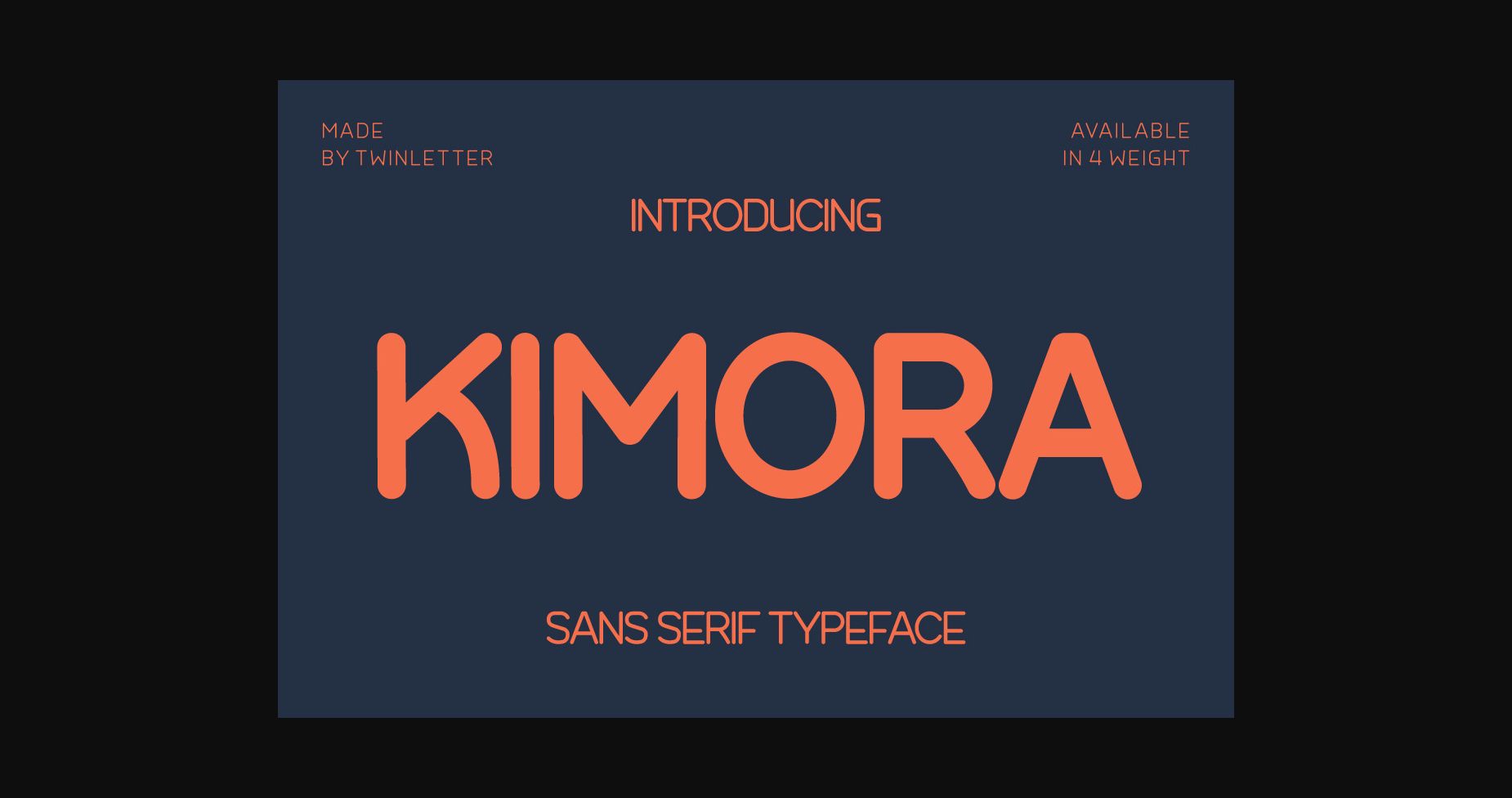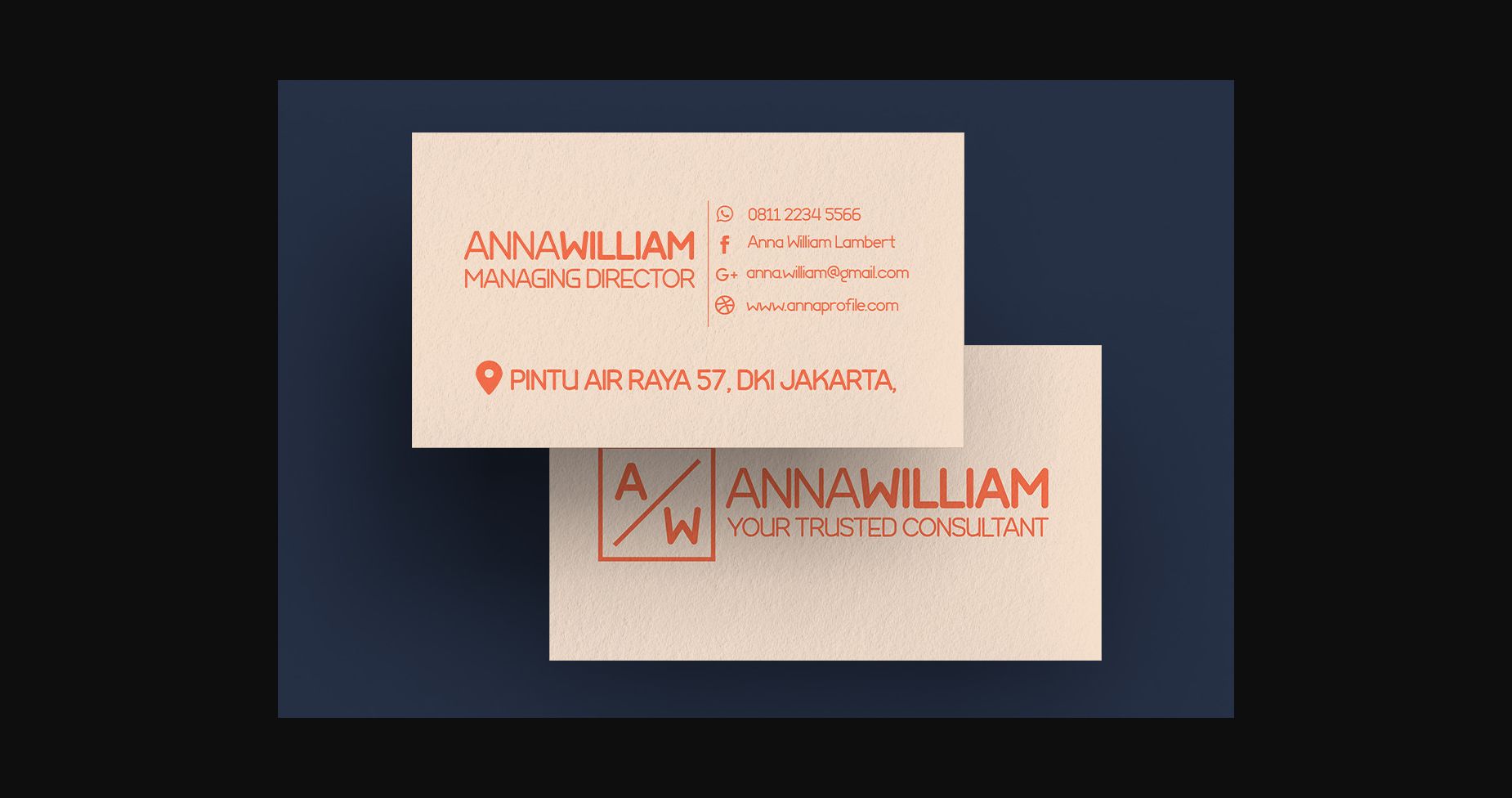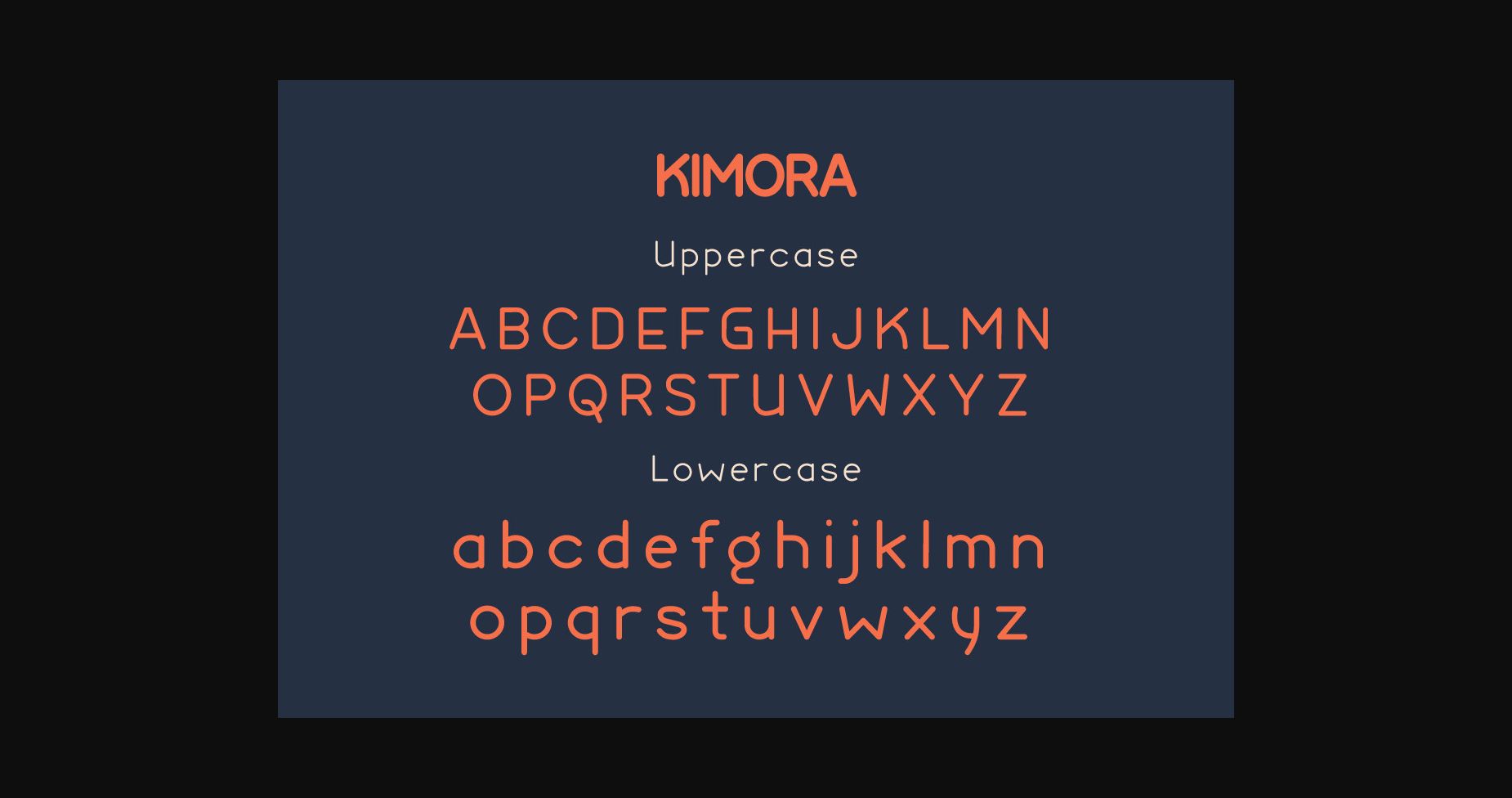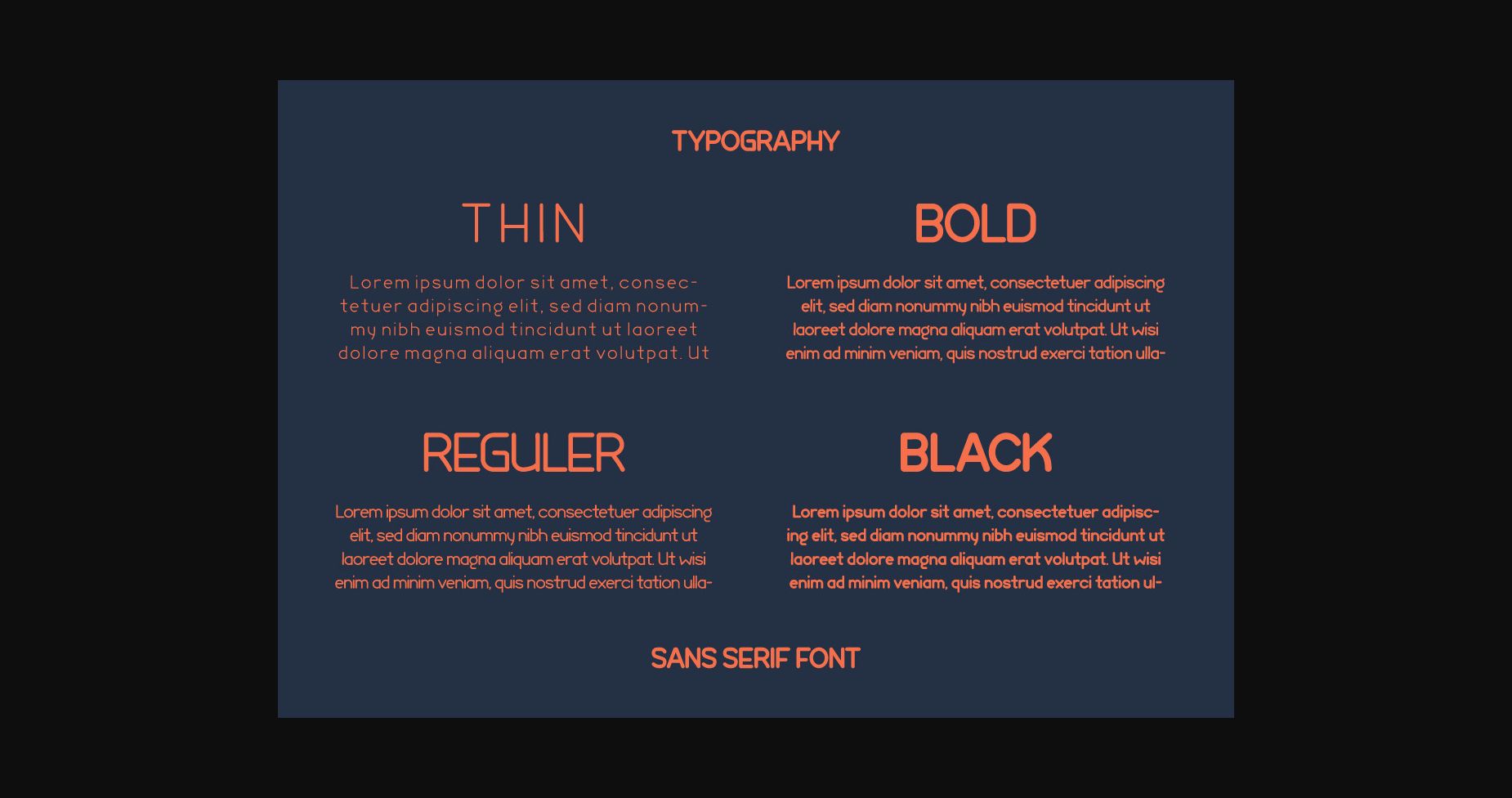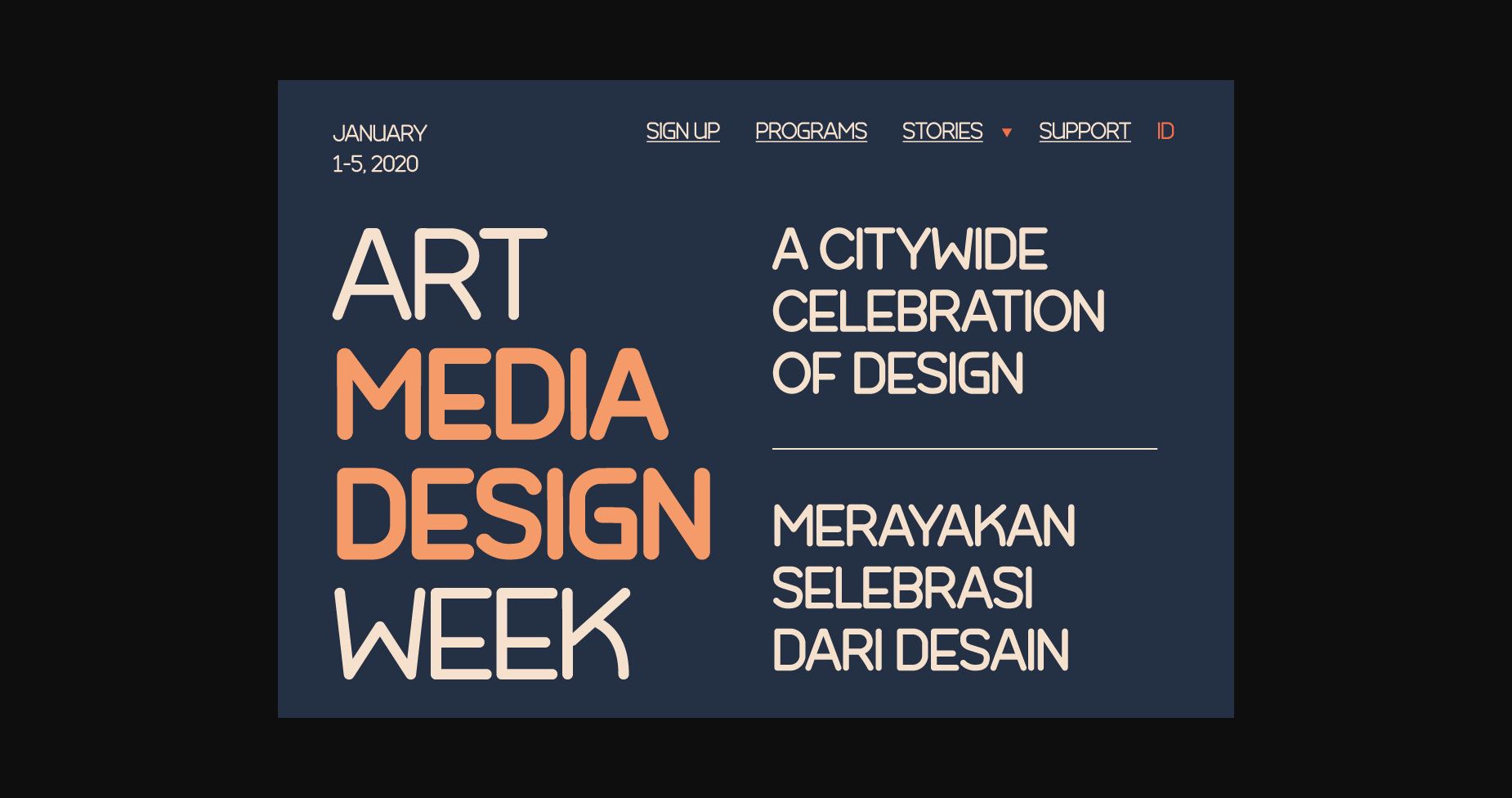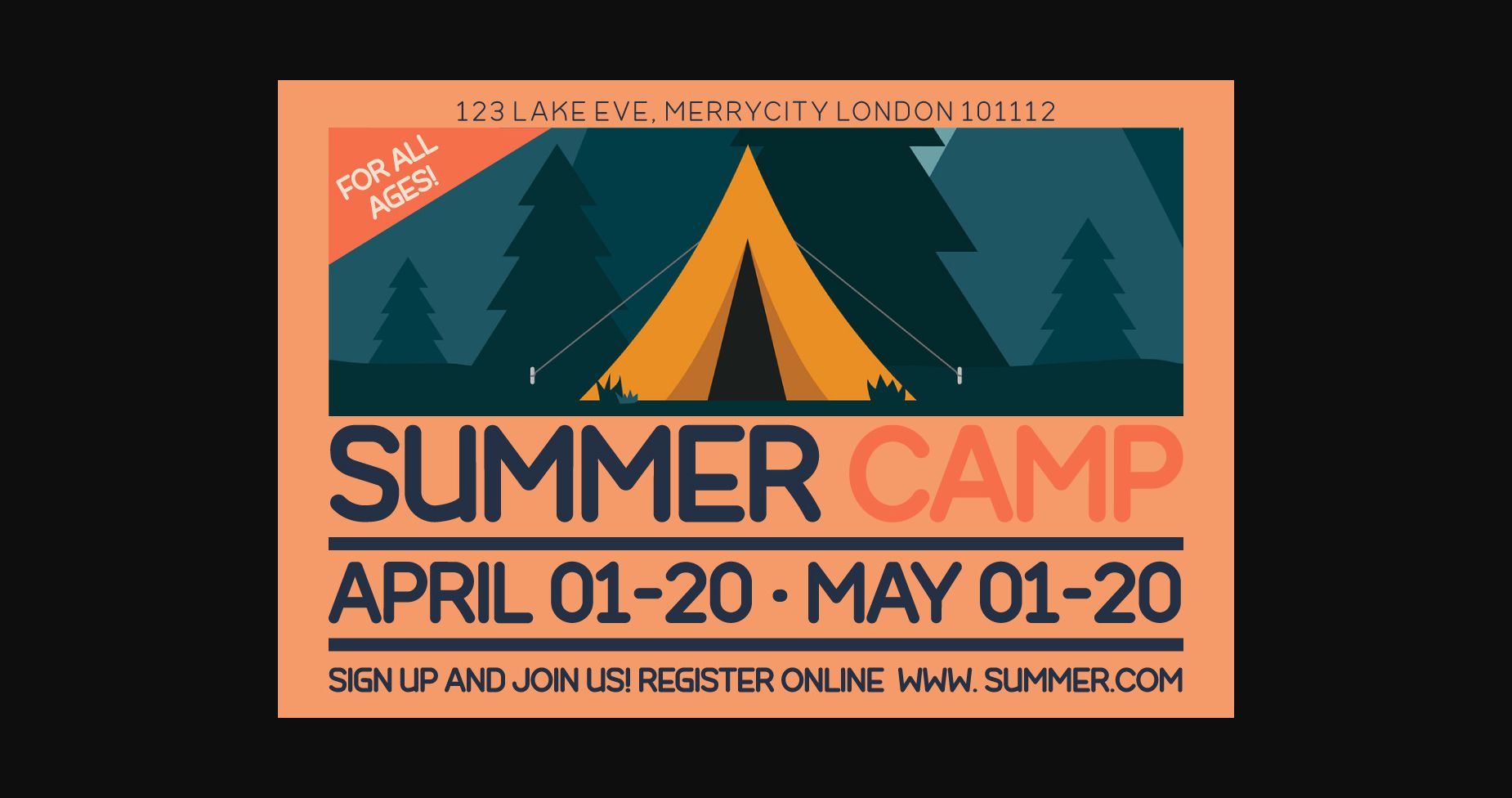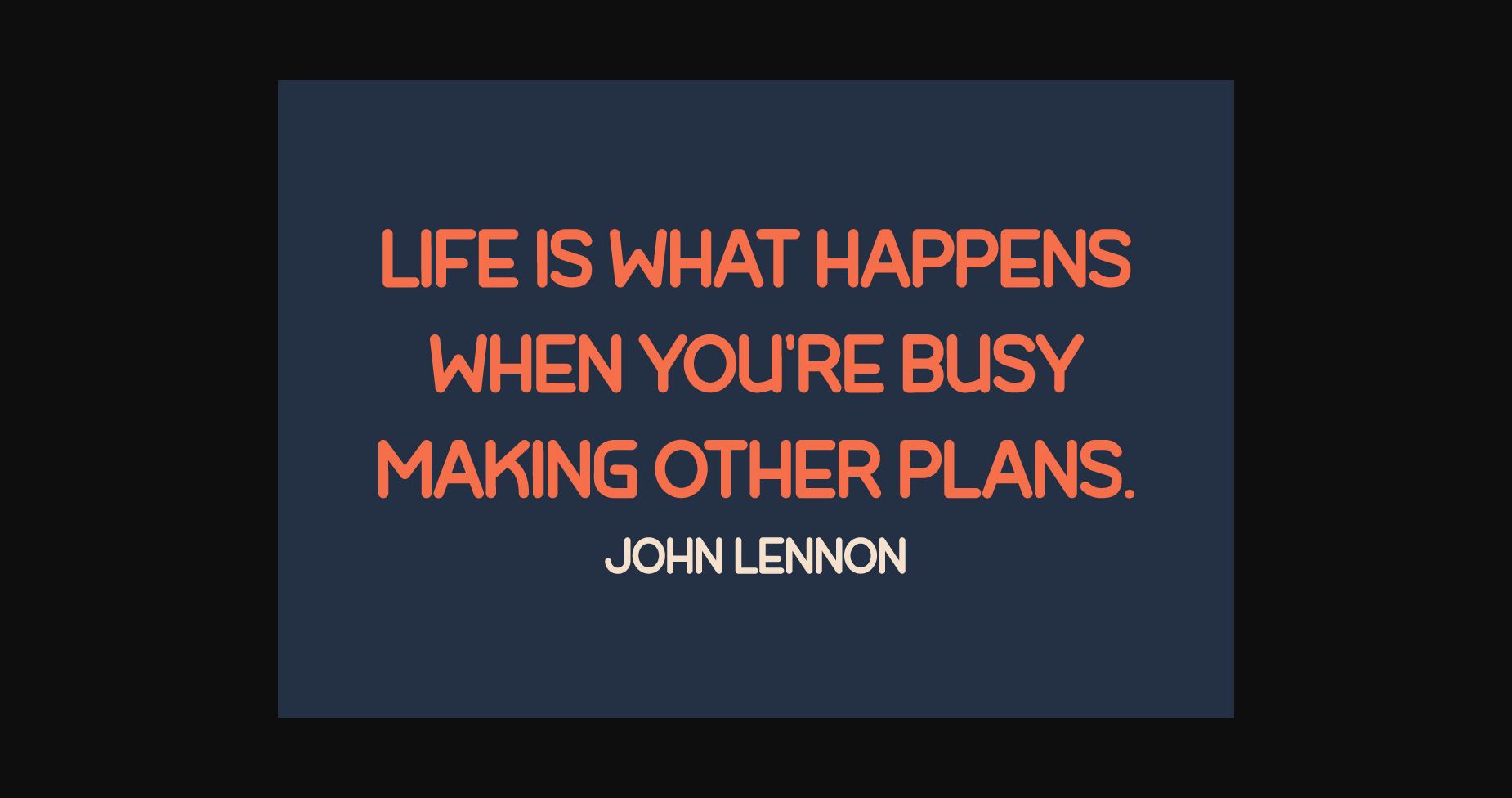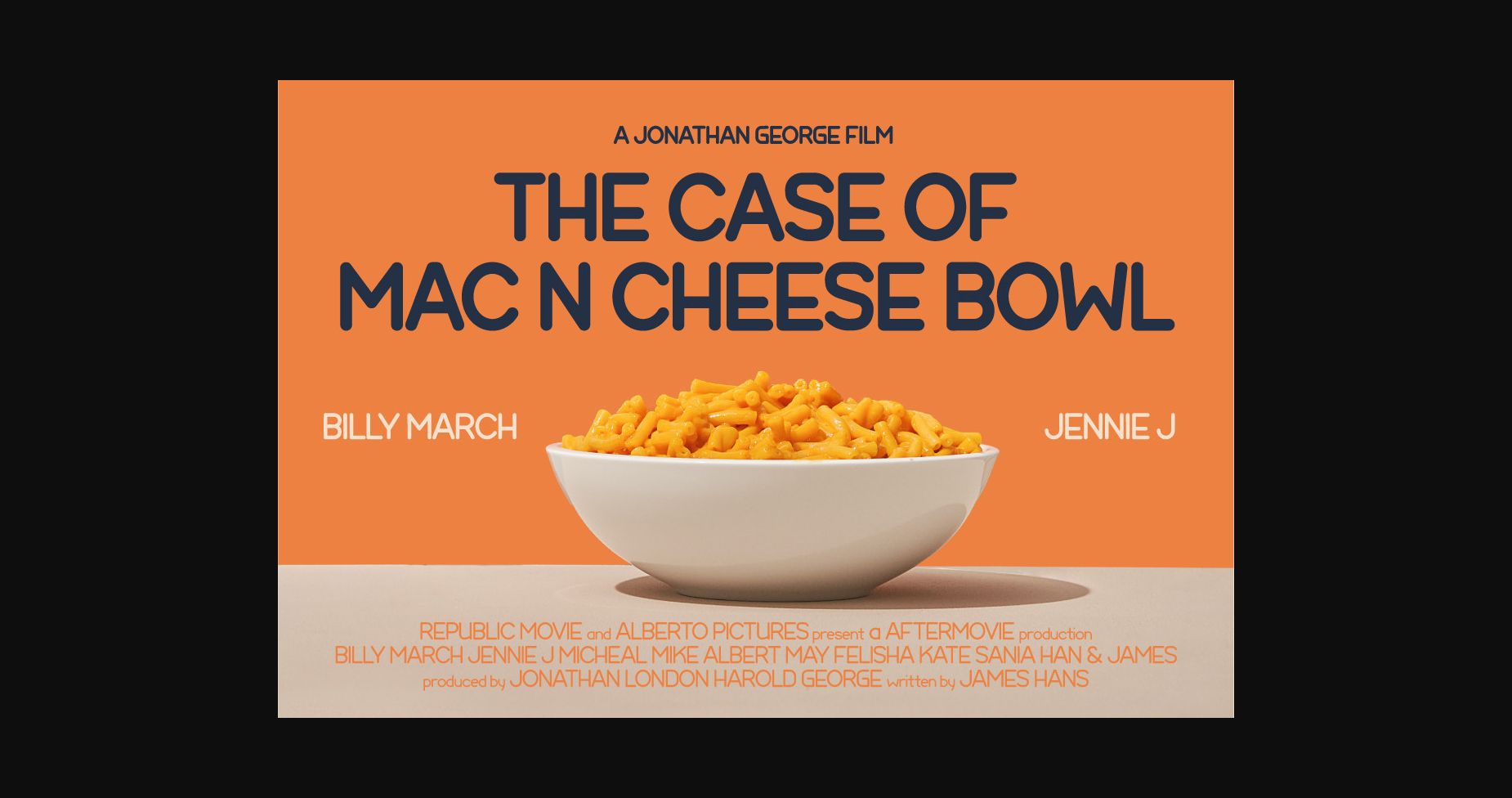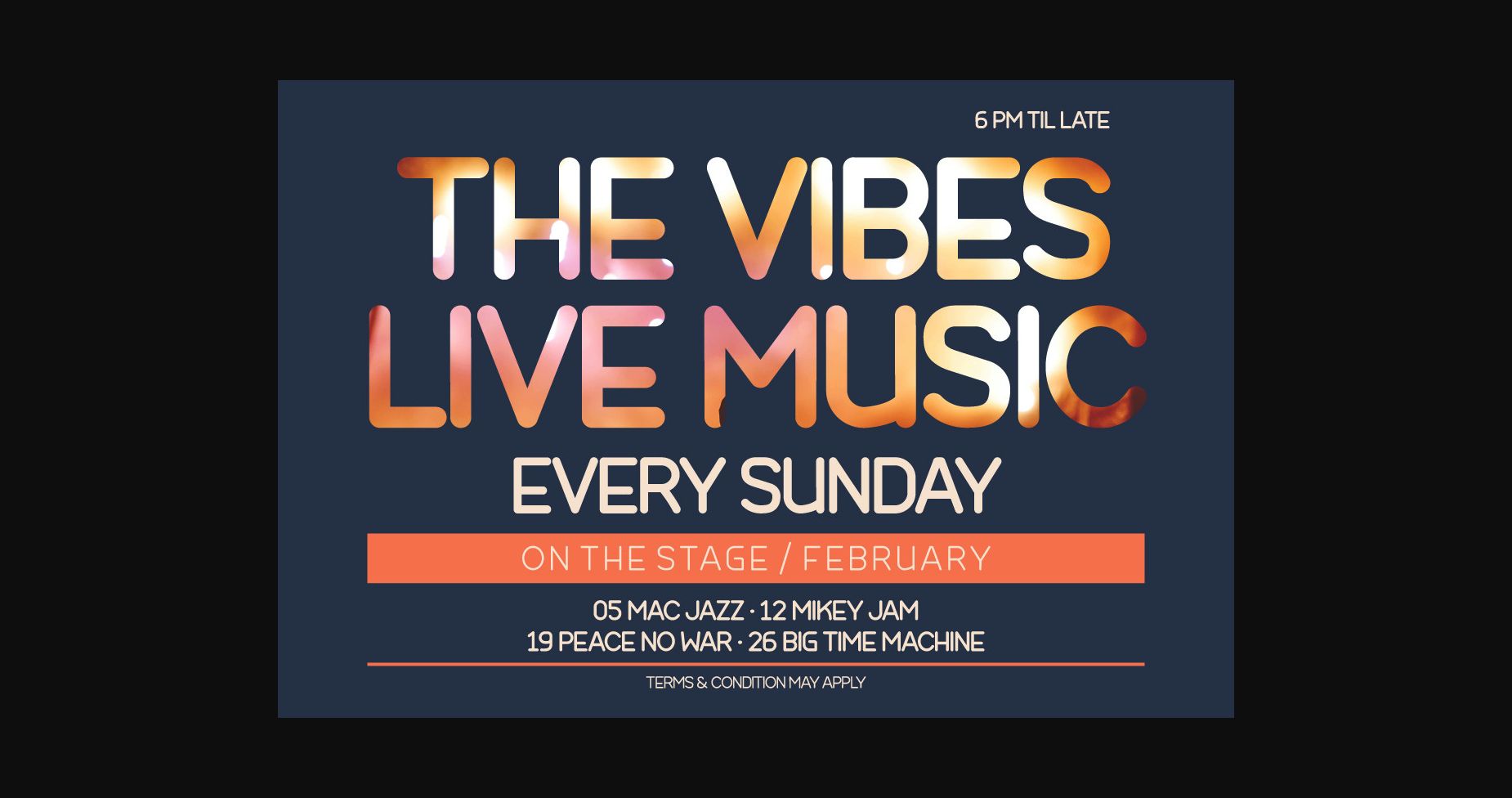
About Kimora Font
Kimora is a relaxed yet vintage and clean sans serif font. No matter the topic, this font will be an incredible asset to your fonts’ library, as it has the potential to elevate any creation.